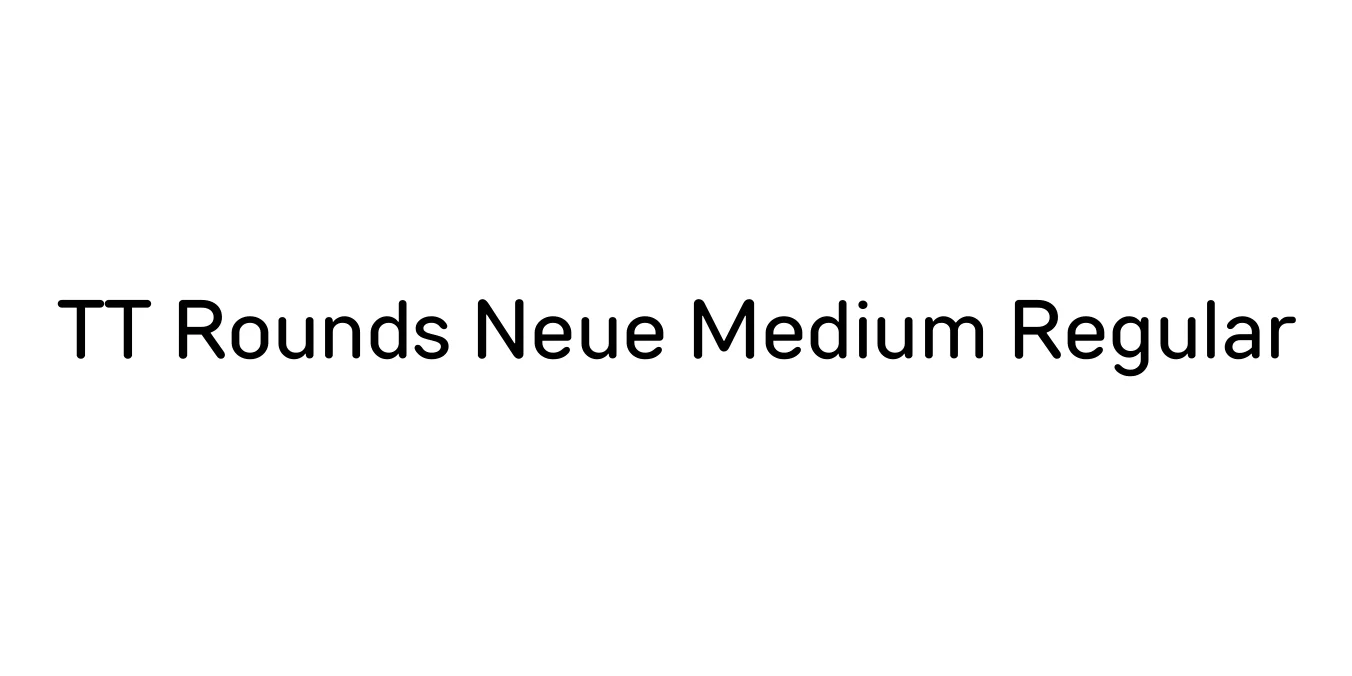
TT Rounds Neue Medium Regular
Designed by TypeType Team, Ivan Gladkikh
| Category | Rounded Sans Serif |
| Designer | TypeType Team, Ivan Gladkikh |
| Similar Fonts | VAG Rundschrift, Proxima Soft, Arial Rounded, Comfortaa |
TT Rounds Neue represents a complete overhaul and modernization of the original TT Rounds font family. Developed by the TypeType foundry, this typeface was redesigned to meet the high standards of contemporary digital design while preserving its signature soft and friendly personality. The Medium Regular weight is particularly notable for its refined proportions and improved optical balance, making it much more versatile for complex layout tasks than its predecessor.
The design of TT Rounds Neue Medium Regular focuses on a welcoming aesthetic, achieved through perfectly rounded terminals and a balanced geometric structure. It bridges the gap between a playful display font and a functional text face. This weight provides enough presence for impactful headlines while remaining clear and legible for short-to-medium length body copy, ensuring a smooth reading experience across various digital and print platforms.
TT Rounds Neue Medium Regular Best Uses
Ideal for startups and consumer brands seeking an approachable and trustworthy identity.
Excellent for UI elements where high legibility and a soft look are required.
Perfect for educational content and toys due to its friendly, non-aggressive shapes.
Great for headers and navigation menus to create a modern, clean website feel.